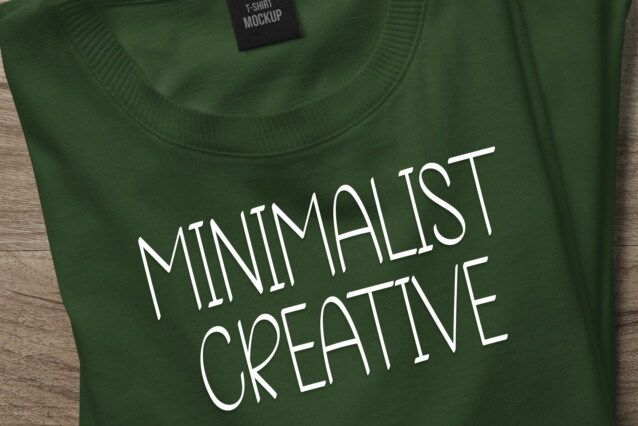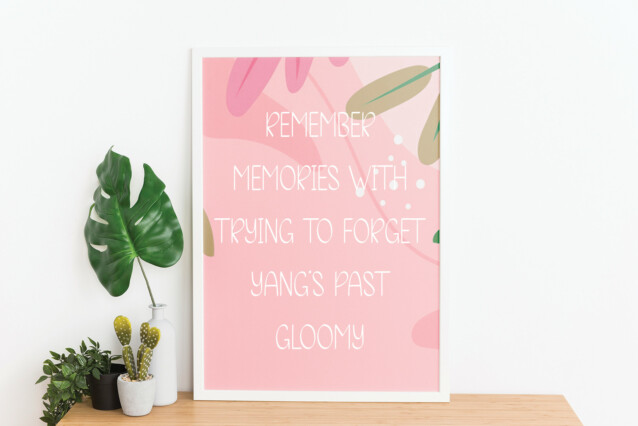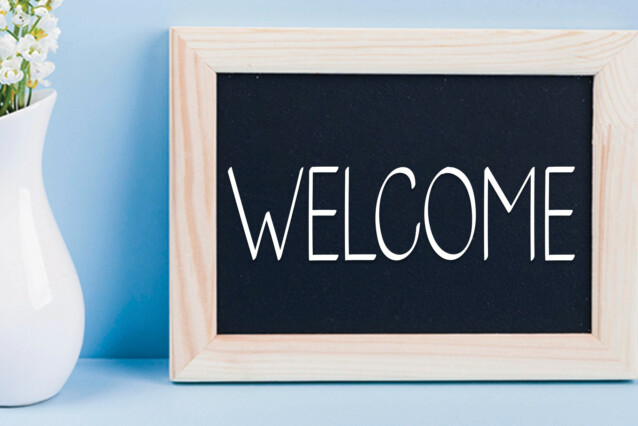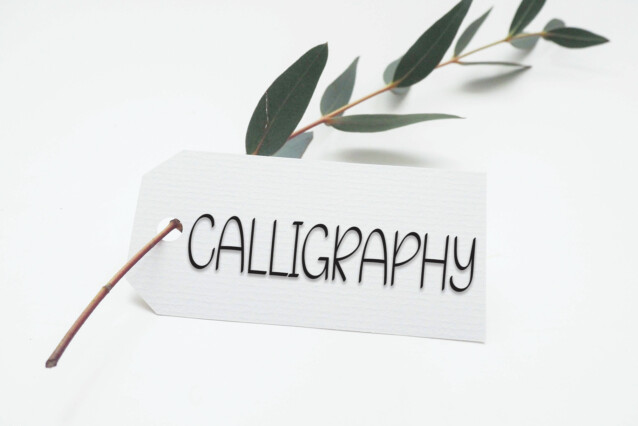
Handmade Calligraphy Display Font
Handmade Calligraphy Display Font is a cool and relaxed handwritten font. This versatile font has a wide spectrum of applications ranging from greeting cards to headlines and is guaranteed to add a neat and natural feel to your next project!